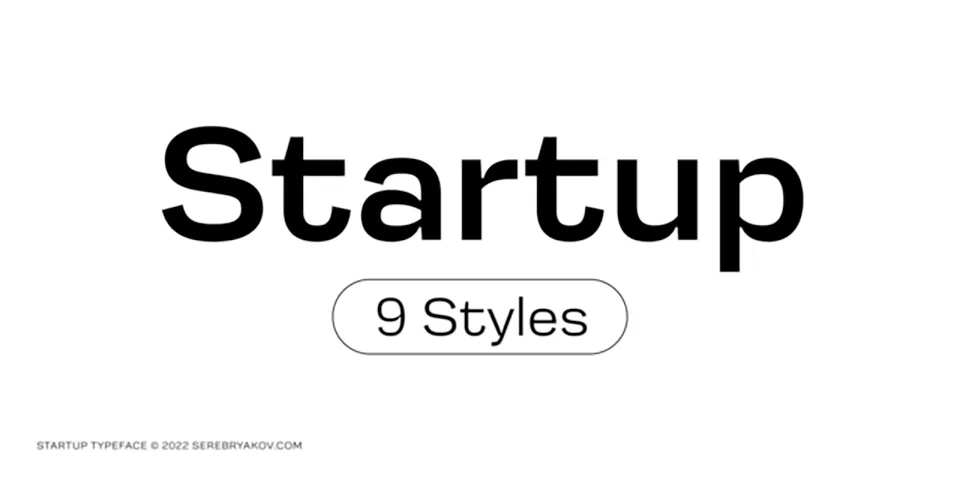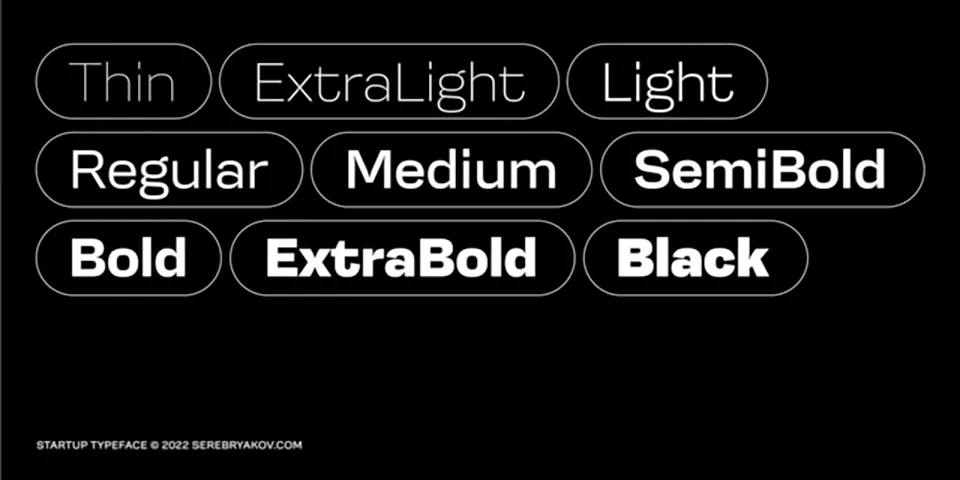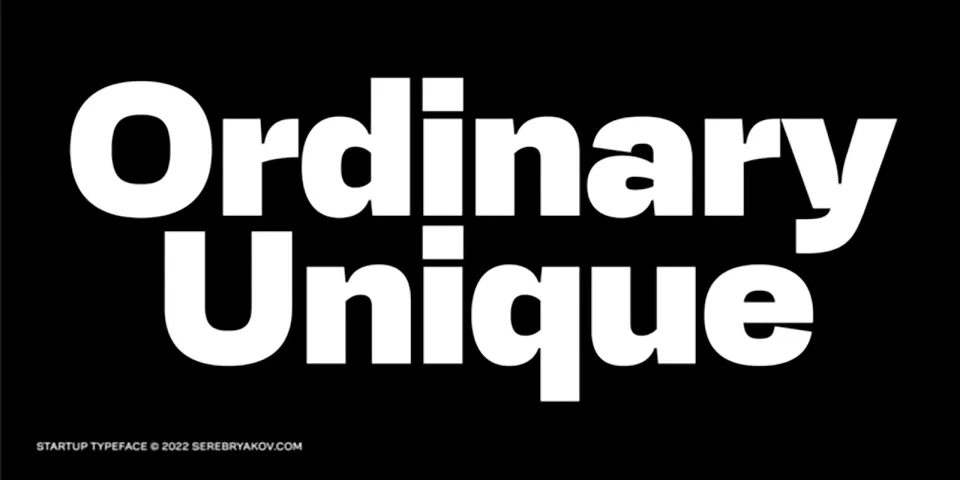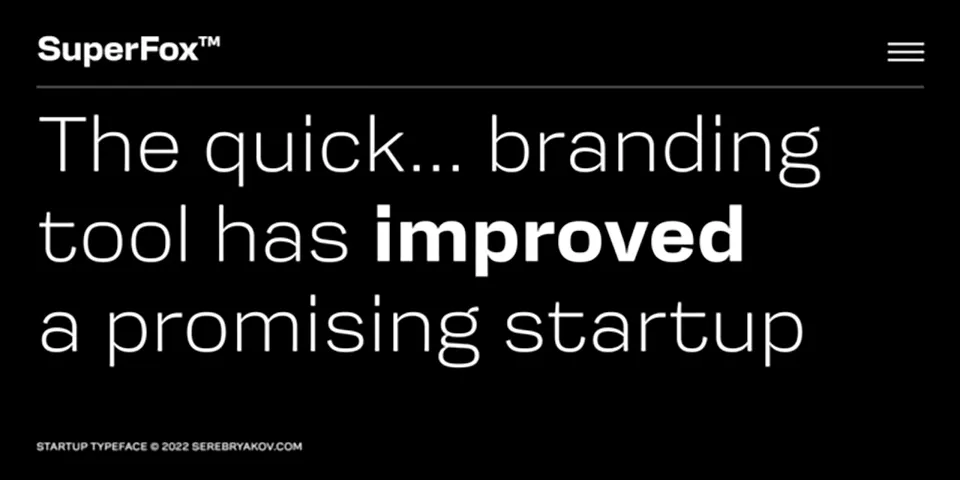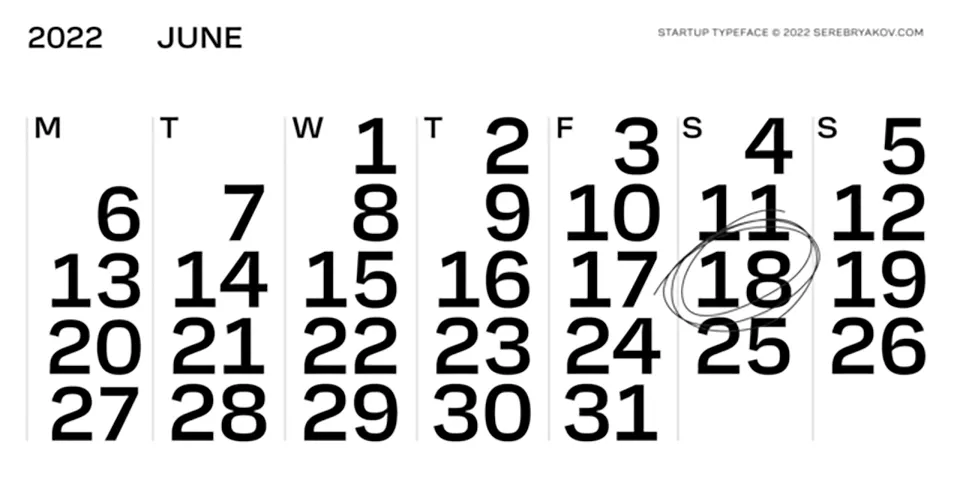
Startup Font Family
Startup Font Family is a modern sans-serif typeface carefully crafted to be a versatile solution for the contemporary world. Blending the aesthetics of gothic sans and Neo-grotesques, it is designed specifically for startup identities and branding. With nine distinct styles, this type family is ideal for logos, headlines, and secondary text, offering a personality that is subtle yet distinctive, making it perfect for projects that require modern, clean, and professional typography.